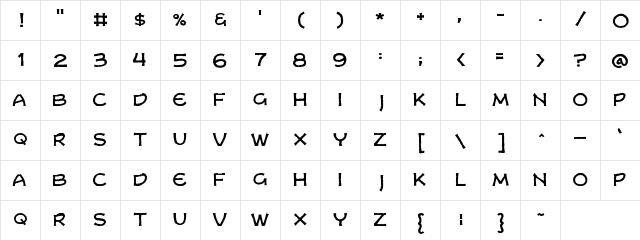
Complete Dungeon Crawler CB Regular glyph index. Displaying only characters natively supported by Dungeon Crawler CB Regular font.
Dungeon Crawler CB is a composed and adaptable typeface that performs quietly and consistently across a wide range of design contexts.
Pro Tip: Use Dungeon Crawler CB in both headline and body roles to test its range before committing to a single application.